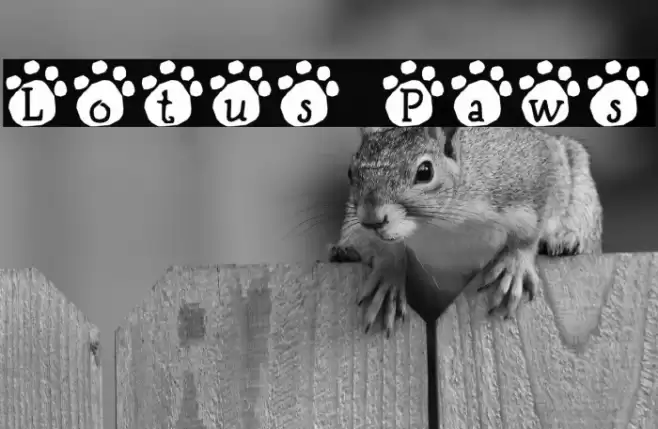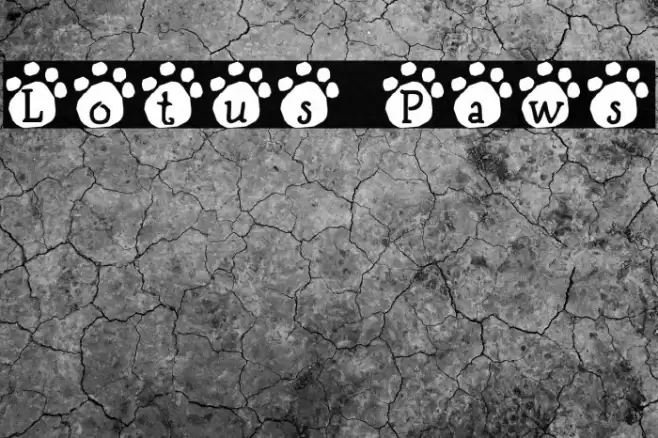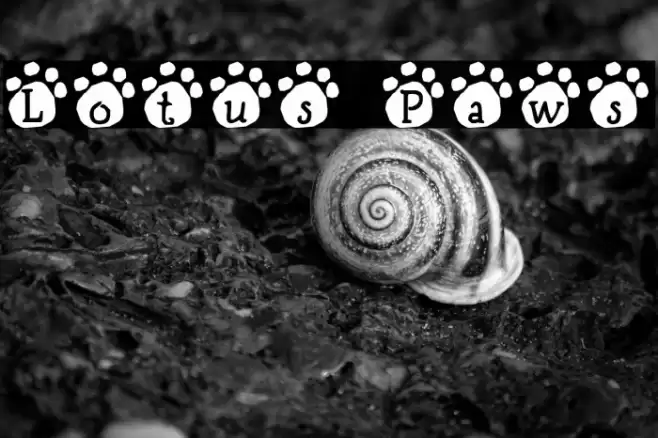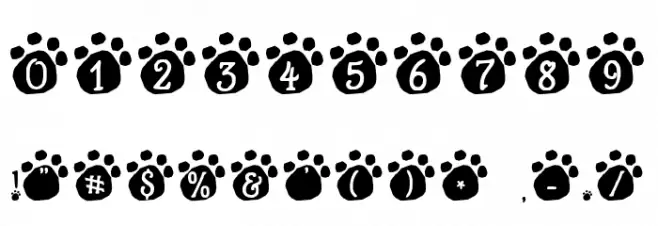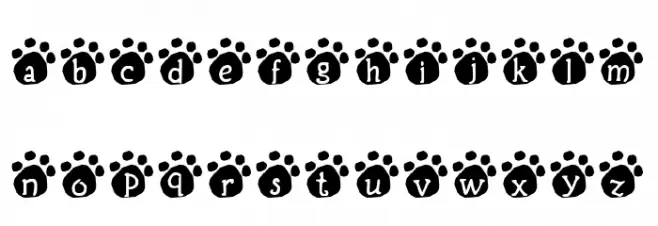
Lotus Paws Font
Lotus Paws Description
This playful and whimsical font features each character encased within a paw print, creating a unique and charming appearance. The letters and numbers are bold and clear, making them easily readable despite the decorative elements. The font's design is consistent across uppercase, lowercase, and numerical characters, maintaining a cohesive look. The special characters are also integrated into the paw print design, ensuring uniformity. This font is perfect for projects that require a fun and lighthearted touch, such as children's books, pet-related branding, or playful invitations.
A playful font with characters encased in paw prints, ideal for fun and whimsical designs from Uncategorized fonts.
- Proposed Projects: Children's books, pet-related branding, playful invitations, greeting cards, and posters.
- Overall Style: Whimsical
- Use Case: Logos, Headlines, Posters